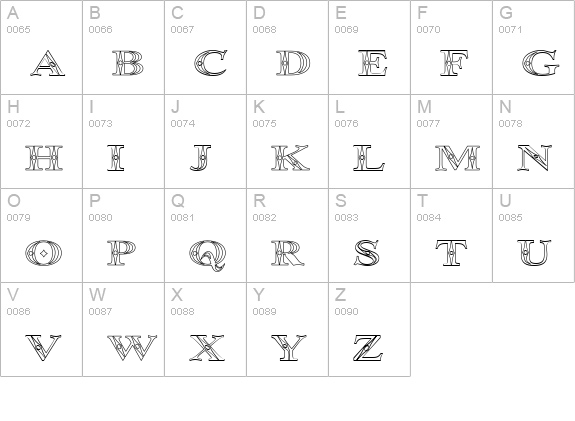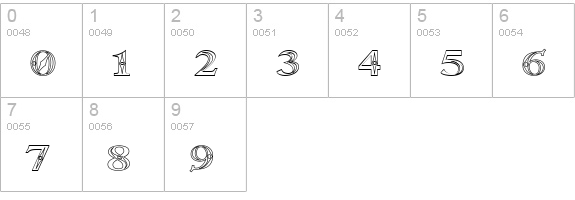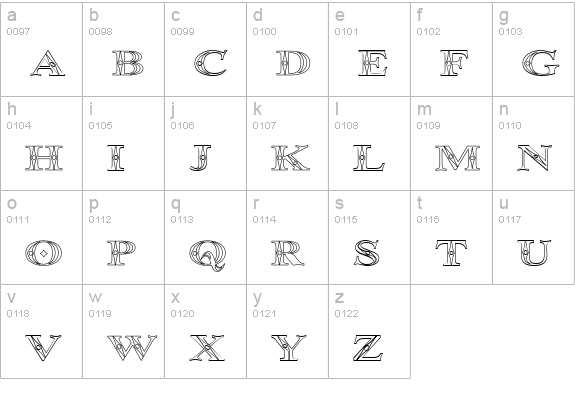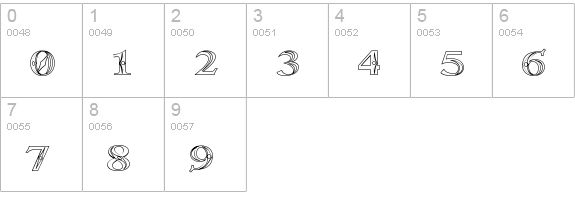
Occoluchi Outline Font Details
Occoluchi Outline is a modern and stylish font that exudes elegance and sophistication. Its clean lines and sharp edges make it perfect for a variety of design projects, from branding to social media graphics. The outline design of Occoluchi gives it a unique and eye-catching appearance that will make your text stand out. The best part? Occoluchi Outline is completely free to download at FontsMarket.com. You can easily add this stunning font to your collection without any cost, making it a valuable asset for any designer or creative professional. Whether you're working on a logo, website, or print materials, Occoluchi Outline will elevate your designs and leave a lasting impression on your audience. Download it today and start creating beautiful and impactful designs with this fantastic font.